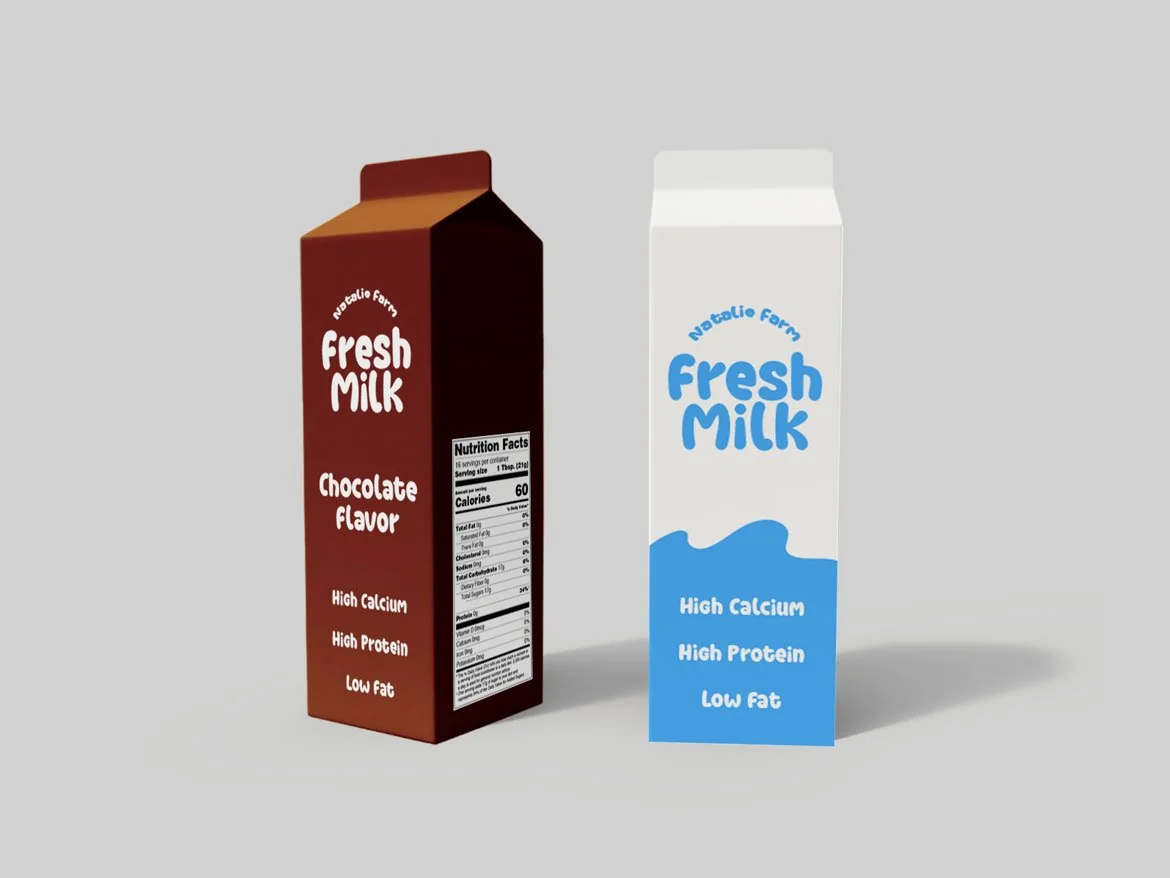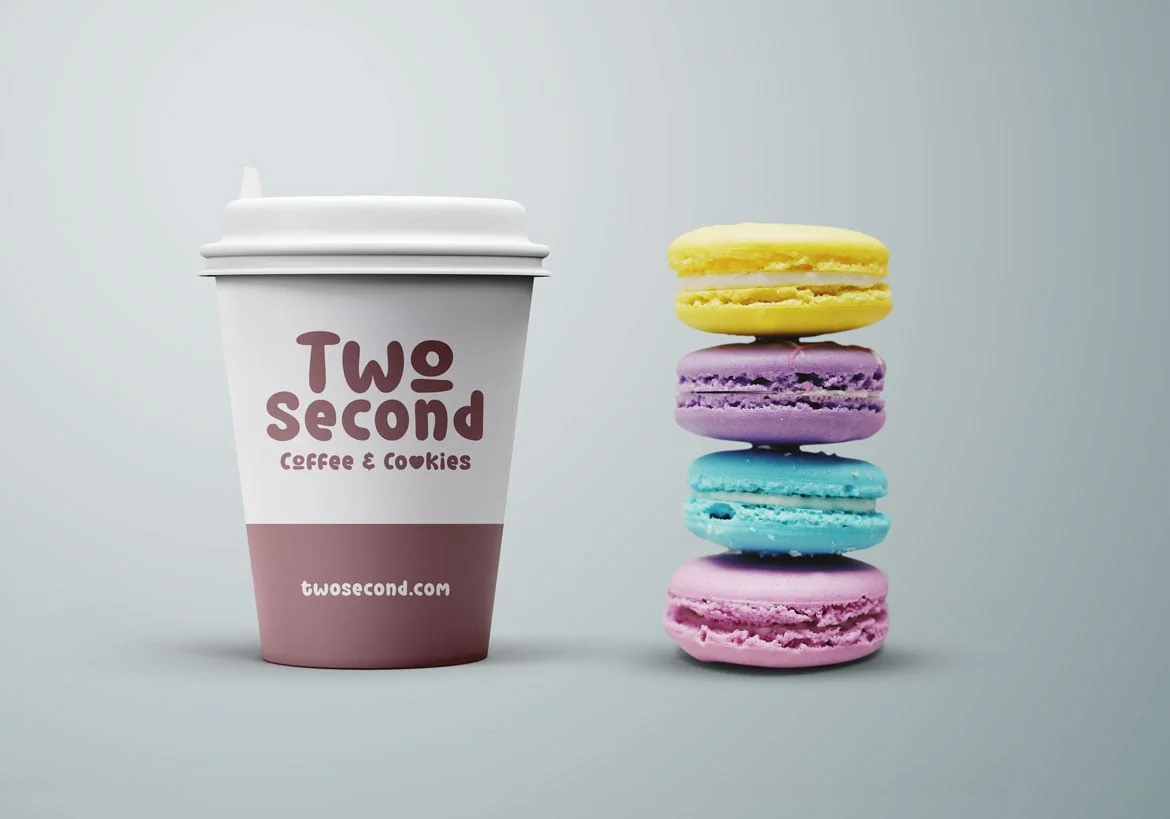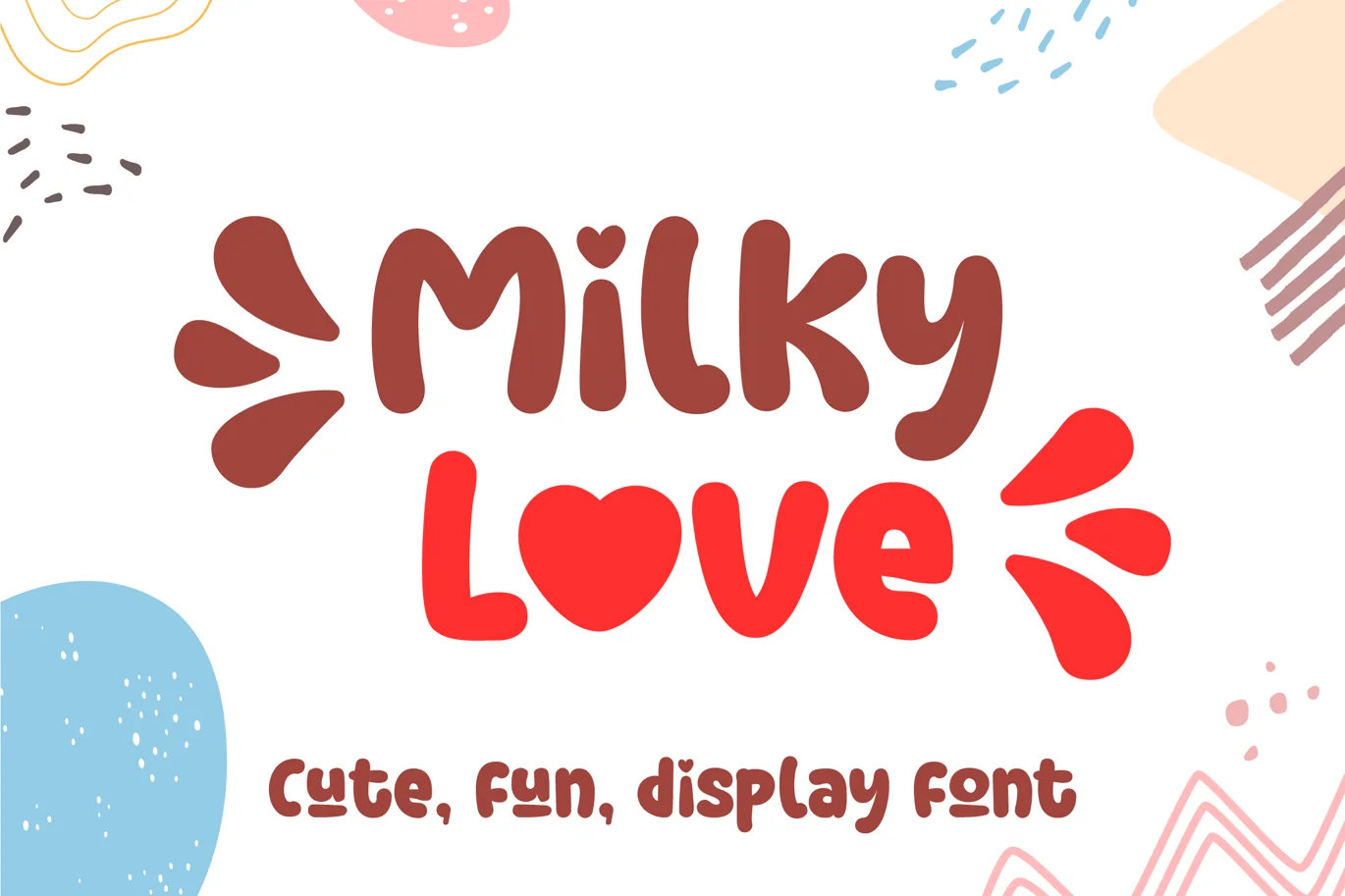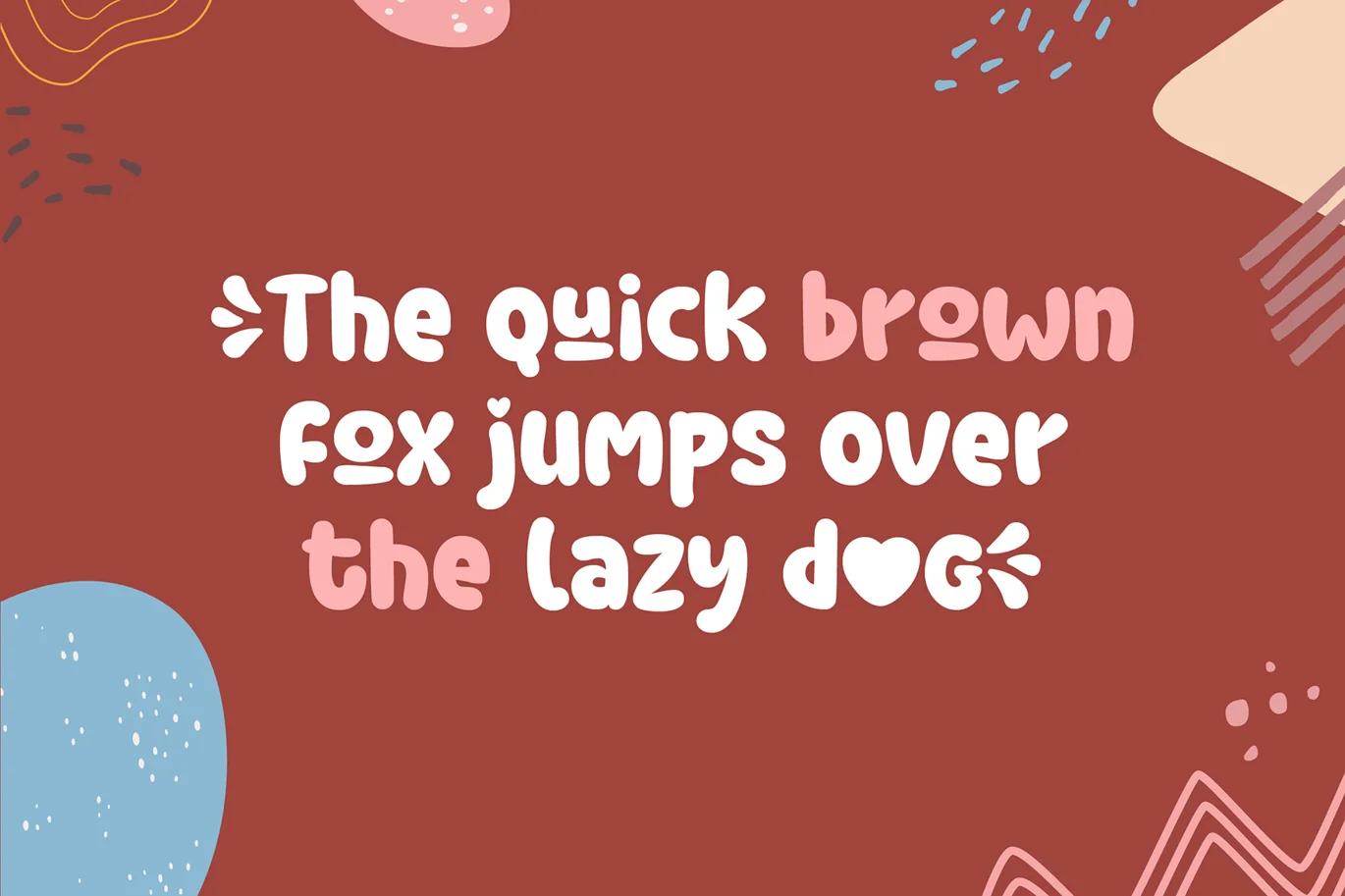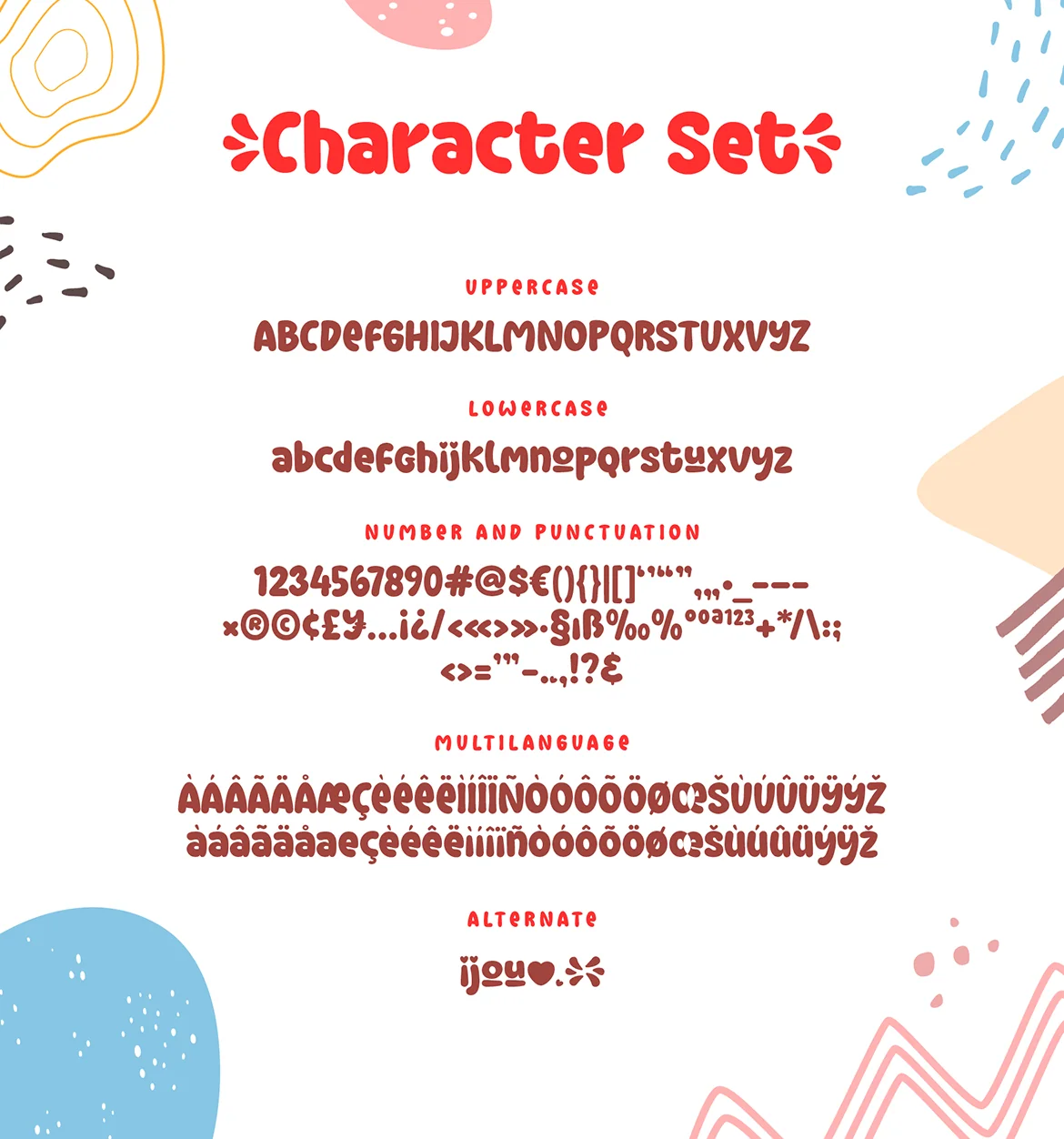
Milky Love Cute Logo Font
Milky Love Cute Display Font
Milky Love is a cute and fun display font. It features a unique style and will add a friendly feel to your upcoming projects. Get inspired by its authentic feel and use it to create fun social media post, beautiful poster, cheerful greeting cards and many more!greeting cards.
Special Character/ Alternate Glyphs included